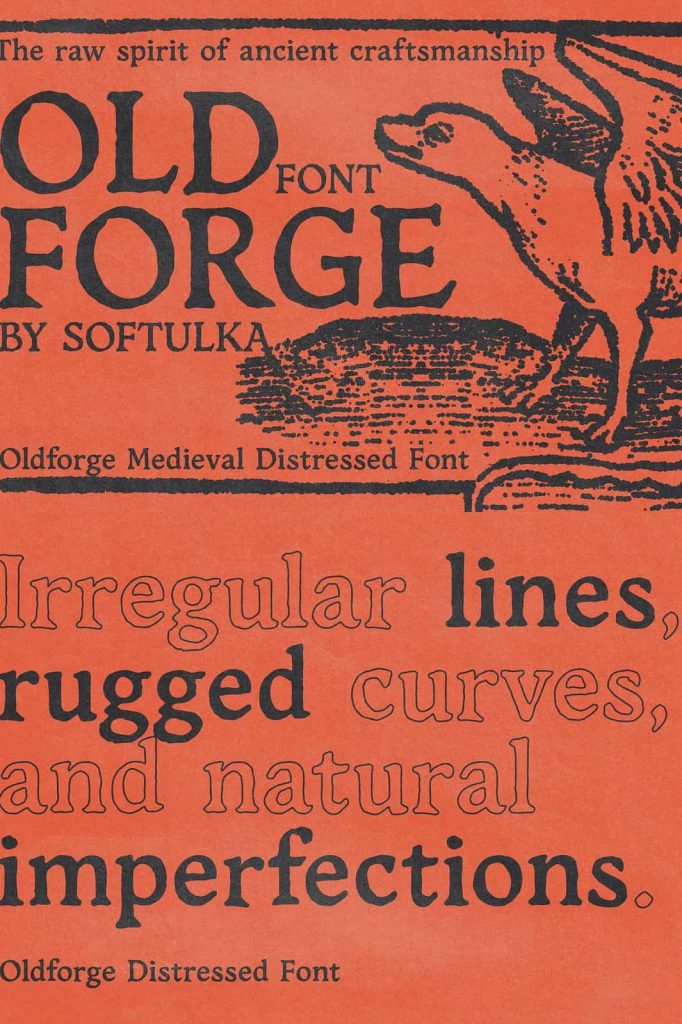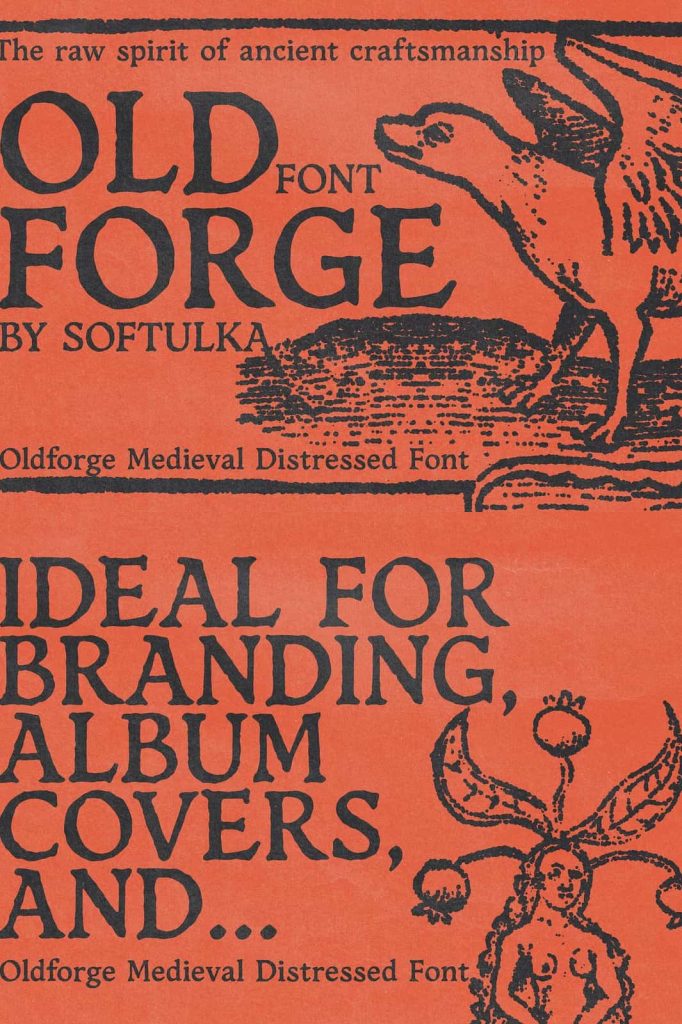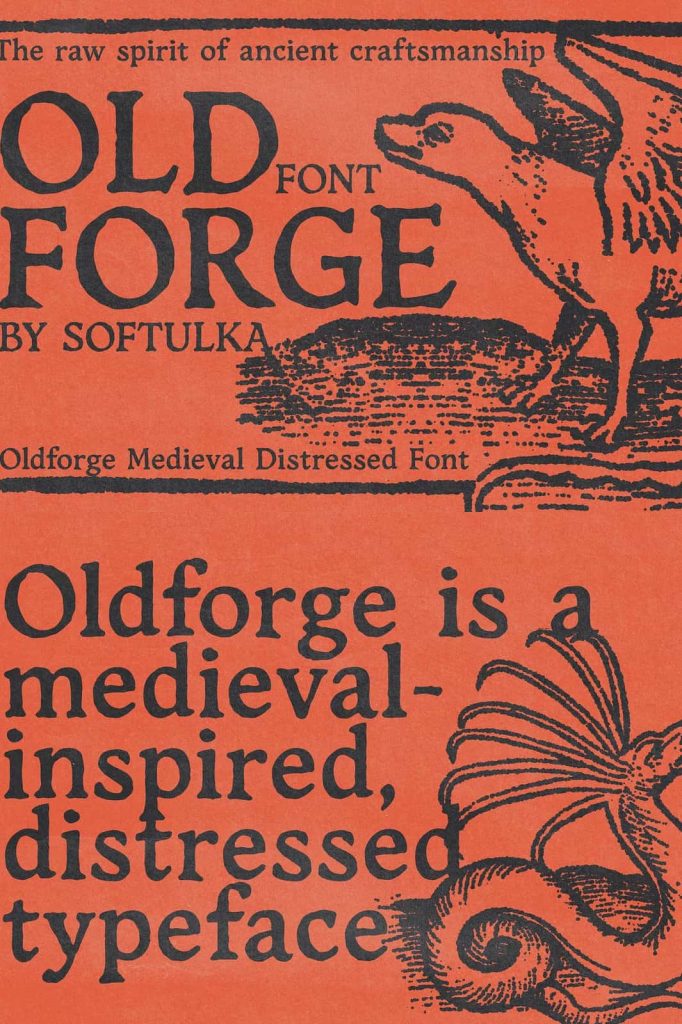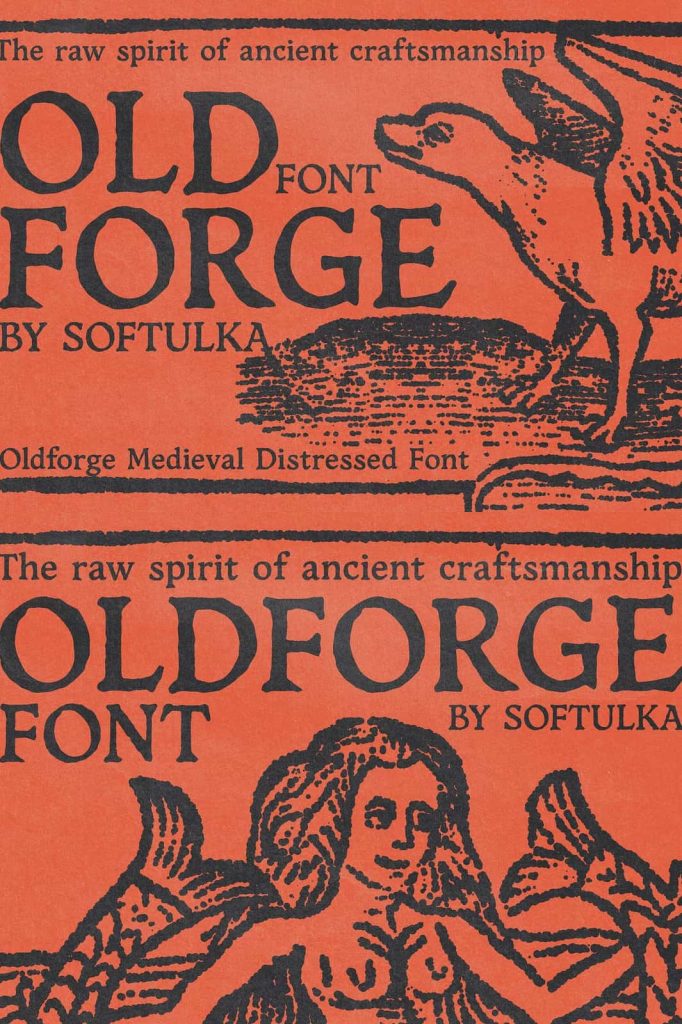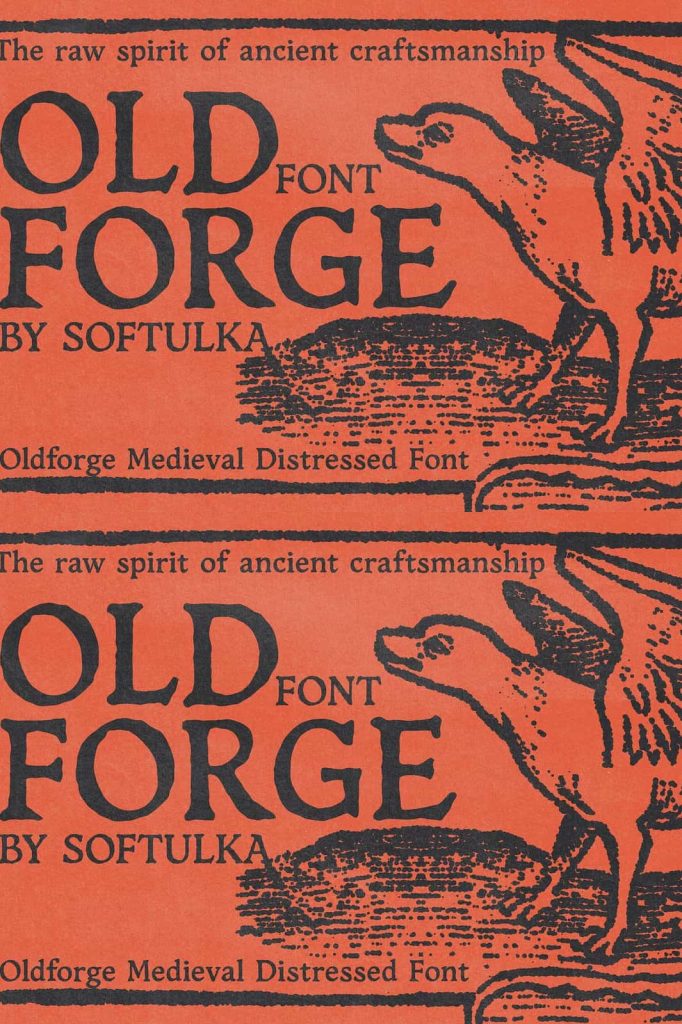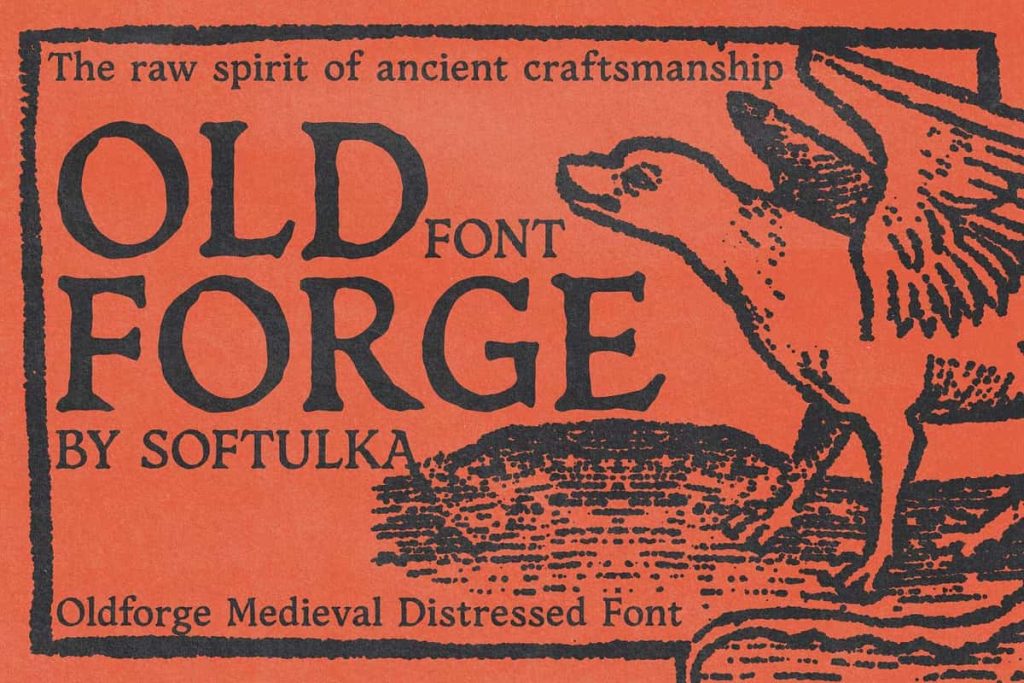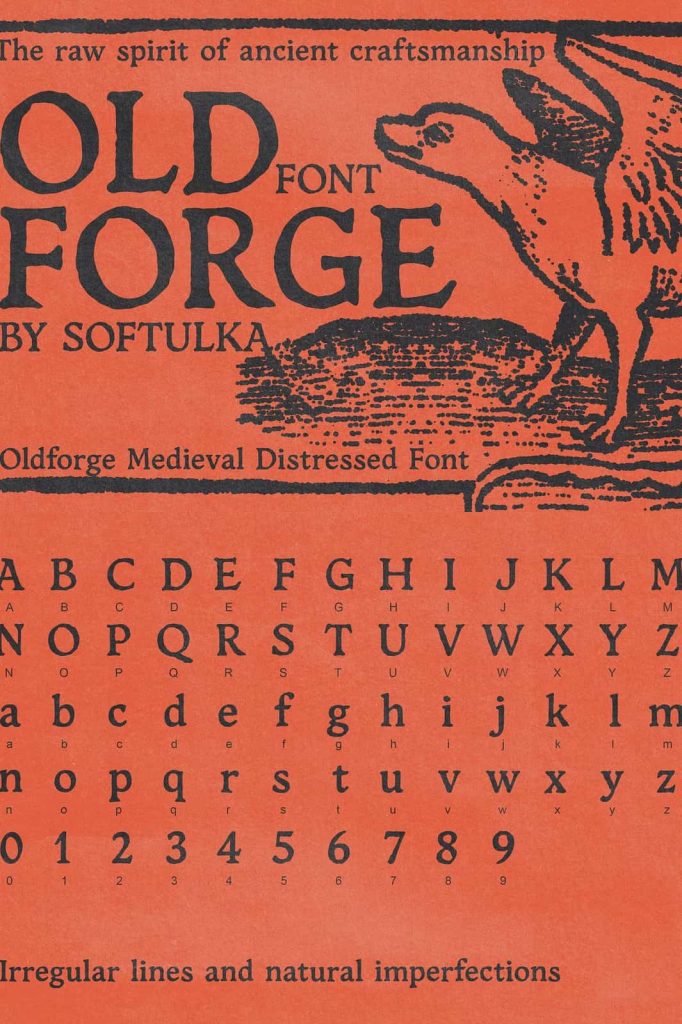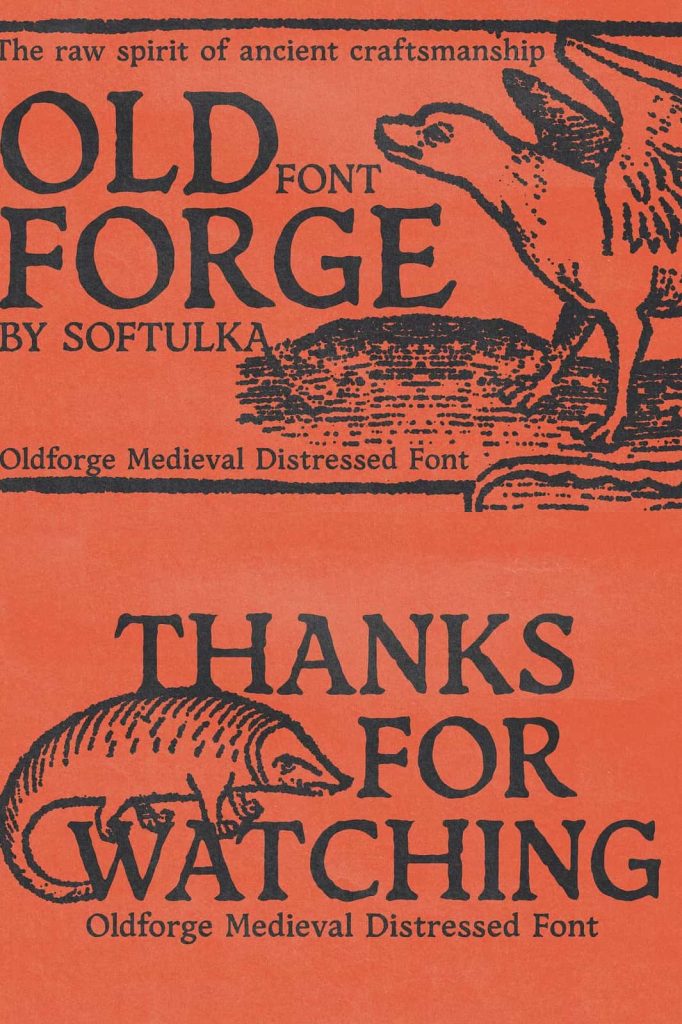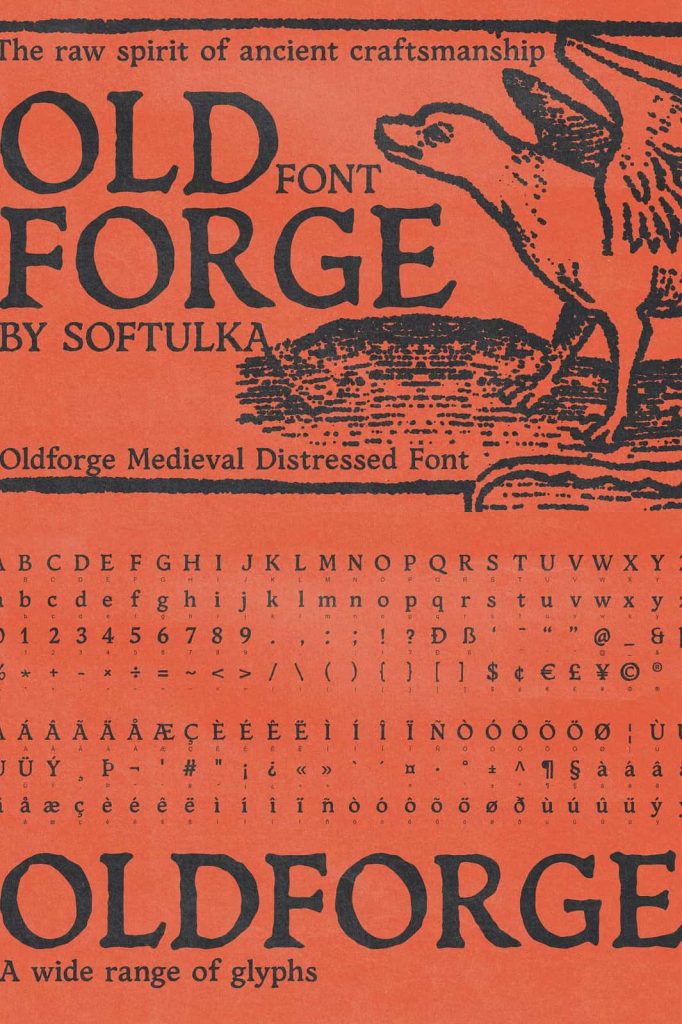
Oldforge Medieval Font – A Distressed Typeface Inspired by Ancient Craftsmanship
Oldforge Medieval Font is a powerful and atmospheric typeface that captures the rugged beauty of ancient craftsmanship and historical artistry. Inspired by weathered manuscripts, hand-carved stone inscriptions, forged metalwork, and centuries-old relics, this distressed font brings an authentic medieval character to modern creative projects. Every letter carries subtle imperfections, irregular edges, and handcrafted details that evoke the spirit of a bygone era.
Designed for creators who want to add depth, history, and personality to their typography, Oldforge delivers a bold visual presence that immediately attracts attention. Its raw and slightly chaotic appearance reflects the imperfections found in traditional hand-forged work, making it an excellent choice for projects that require a vintage, fantasy, historical, or adventure-inspired atmosphere.
Whether you are designing fantasy book covers, medieval-themed posters, gaming graphics, branding materials, or cinematic titles, Oldforge Medieval Font helps create immersive visual experiences that feel authentic and memorable.
Inspired by the Art of Ancient Craftsmanship
The design of Oldforge draws heavily from the visual language of historical craftsmanship. Before modern printing techniques existed, artisans created lettering by hand, carving text into wood, stone, and metal or carefully writing manuscripts with primitive tools. These methods naturally produced irregular shapes, rough textures, and unique imperfections.
Oldforge embraces these qualities and transforms them into a versatile digital typeface. The result is a font that feels organic, handcrafted, and rich with historical character. Every letter reflects the authenticity of handmade work, helping designers create projects that feel grounded in history and tradition.
Distressed Details That Create Authentic Character
One of the defining features of Oldforge Medieval Font is its distressed design. Unlike clean and polished modern typefaces, Oldforge celebrates rough edges, worn textures, and uneven forms. These carefully crafted imperfections give the font a sense of age and realism, making it particularly effective for projects that require historical depth or fantasy-inspired storytelling.
The distressed appearance adds visual interest without sacrificing legibility. Headlines remain bold and impactful while preserving the handcrafted aesthetic that makes the font unique. This balance allows designers to achieve both artistic expression and effective communication.
Popular Uses for Oldforge Medieval Font
- Fantasy Book Covers
- Medieval and Historical Branding
- Video Game Titles and Interfaces
- Movie Posters and Promotional Graphics
- Fantasy-Themed Event Materials
- Album Covers and Merchandise
- Historical Museum Exhibitions
- Board Game Packaging
- Creative Posters and Artwork
- Website Headers and Hero Sections
- Adventure and Role-Playing Game Assets
- Vintage Product Packaging
Perfect for Fantasy and Adventure Projects
Fantasy worlds rely heavily on visual storytelling, and typography plays a significant role in creating immersive experiences. Oldforge Medieval Font instantly evokes images of ancient kingdoms, forgotten legends, enchanted forests, and heroic quests. Its rugged appearance helps establish mood and atmosphere before audiences even begin reading the content.
Game developers, authors, and designers can use Oldforge to create captivating titles, maps, promotional graphics, and world-building materials that feel authentic to fantasy settings. The font enhances storytelling by reinforcing themes of adventure, mystery, and history.
Create Memorable Book Covers and Editorial Designs
Book covers must capture attention while communicating the essence of a story. Oldforge excels in genres such as fantasy, historical fiction, mythology, adventure, and folklore. Its distressed letterforms immediately suggest depth, intrigue, and timelessness, helping books stand out both online and in print.
Publishers and independent authors can use Oldforge for titles, chapter headings, promotional materials, and companion products. The font’s distinctive appearance strengthens visual branding and helps create a memorable identity for literary projects.
Strengthen Historical and Vintage Branding
Brands seeking a traditional, handcrafted, or heritage-inspired image can benefit greatly from Oldforge Medieval Font. Its authentic character helps communicate craftsmanship, authenticity, and attention to detail. Businesses associated with artisanal products, handcrafted goods, historical tourism, specialty beverages, and themed entertainment can use the font to establish a strong and recognizable visual identity.
The handcrafted appearance creates a sense of trust and tradition, helping brands connect with audiences who appreciate quality and authenticity.
Designed for High-Impact Headlines and Display Typography
Oldforge performs exceptionally well in large text settings where its intricate details can fully shine. The distressed textures, rugged curves, and handcrafted shapes become more visible at larger sizes, allowing designers to maximize the font’s visual impact.
Posters, banners, game titles, event graphics, and website hero sections benefit from the font’s bold presence. Its dramatic appearance helps create focal points that immediately attract attention and reinforce thematic storytelling.
Enhance Gaming and Entertainment Projects
Video game developers and entertainment designers often need typography that supports immersive world-building. Oldforge Medieval Font provides a powerful solution for fantasy games, medieval adventures, role-playing experiences, and historical simulations.
Its unique aesthetic integrates seamlessly into game interfaces, promotional artwork, title screens, collectible items, and marketing materials. The font helps establish a cohesive visual identity while enhancing the player’s emotional connection to the world being presented.
Why Choose Oldforge Medieval Font?
Oldforge Medieval Font combines historical inspiration, handcrafted authenticity, and artistic versatility into a typeface that stands apart from conventional fonts. Its distressed details, rugged curves, and natural imperfections create a rich visual texture that brings stories, brands, and creative projects to life.
Whether you are designing fantasy book covers, creating immersive game graphics, building heritage-inspired branding, or producing eye-catching posters, Oldforge provides the atmosphere and character needed to make your work memorable. With its authentic medieval influence and handcrafted charm, Oldforge Medieval Font transforms ordinary typography into a compelling visual experience filled with history, adventure, and creativity.